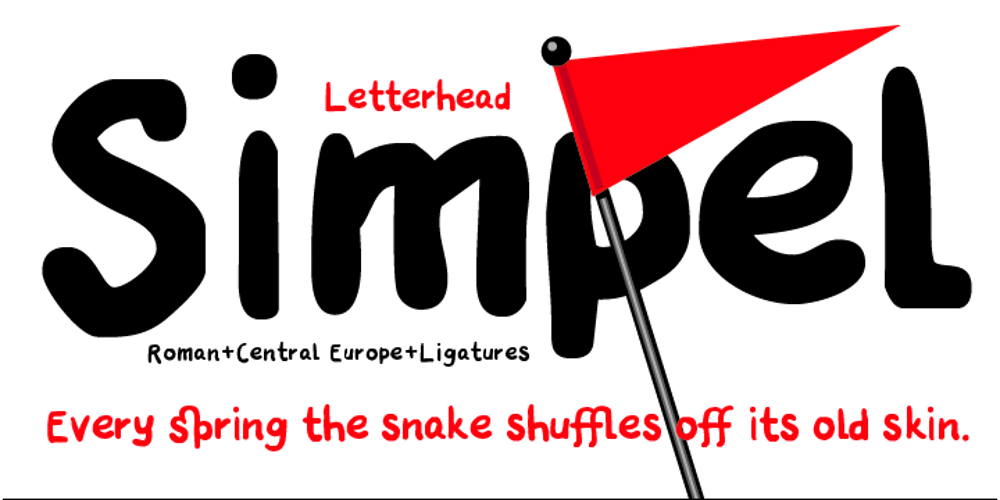
Simpel
Simpel font
Simpel Font Family was designed by Illarion Gordon and published by Letterhead Studio-IG. Simpel contains 1 styles and family package options. This font was made during testing of a neat little application, that traced hand-written letters on the fly. That application was later abandoned, and the font, named Simpel for it’s obvious casual simplicity, was finished separately. This story goes up to the year 1998, and recently the font was returned from the archives. SImpel was completly remastered and some useful ligatures were added. It is nice, clean and really, quite simple. Which often comes very handy. It will work well in comic books, magazines and party flyers, for instance.